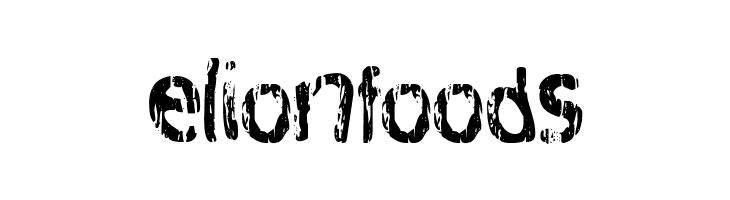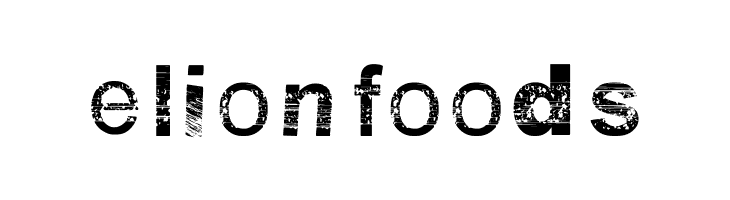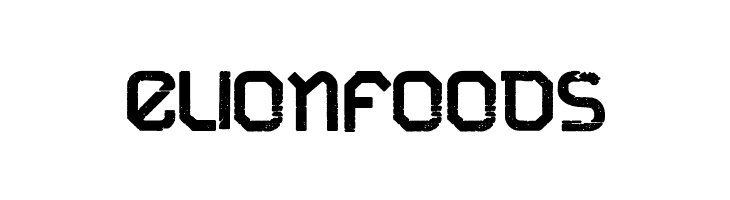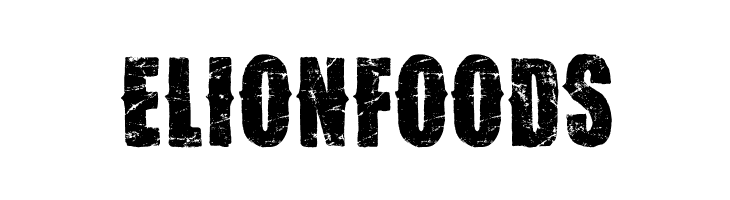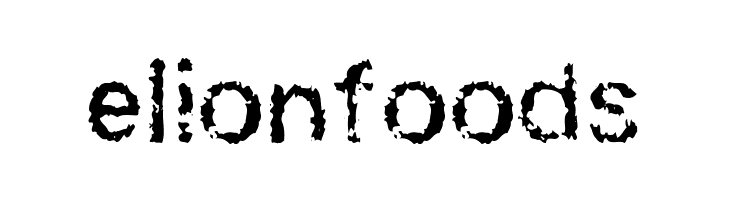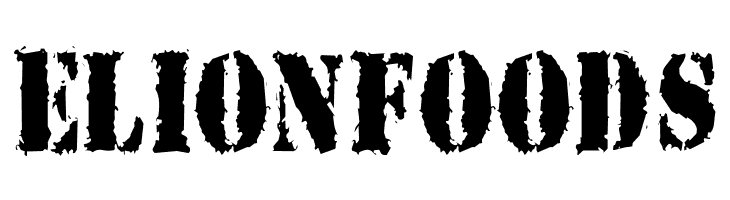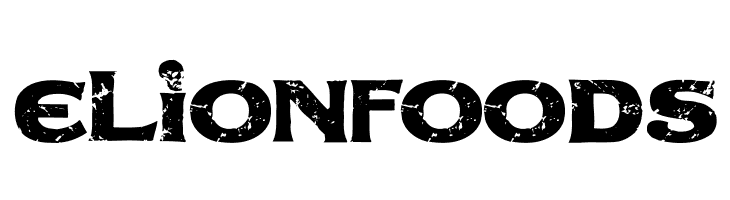
A distressed, grungy font with a bold, hand-painted appearance.
A bold, distressed font with a grunge, textured appearance.
A bold, distressed font with a modern, urban aesthetic.
A bold, distressed font with a rugged, geometric design.
A bold, distressed font with a rugged, grunge style.